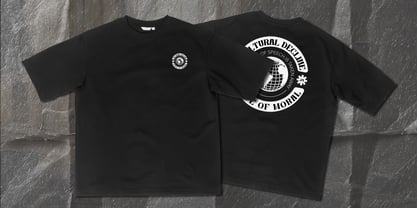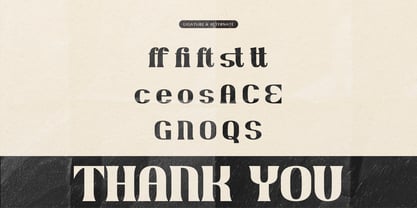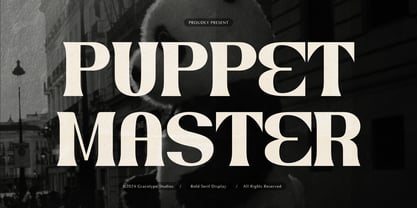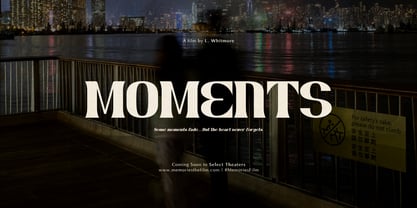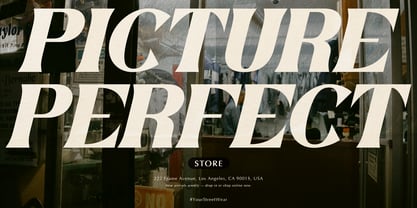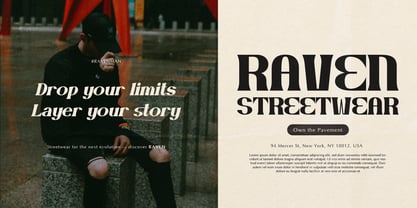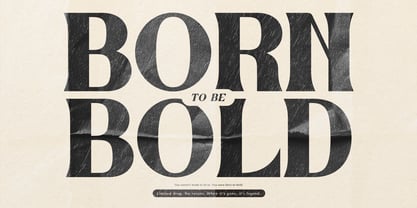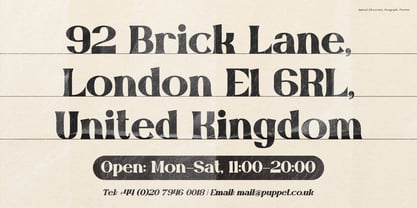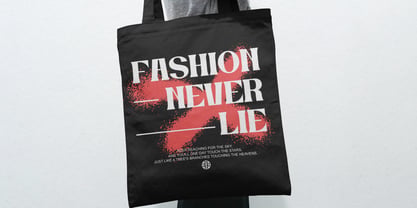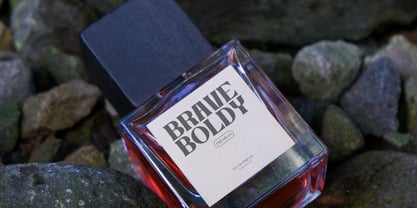
Puppet Master
The Puppet Master Font Family was designed by and published by Tini Fitriani. Puppet Master contains 2 styles and family package options. More about this family
Puppet Master | Bold Serif Display, from Gracetypestudio, suitable for any projects such as: logos, branding projects, homeware designs, product packaging, mugs, quotes, posters, shopping bags, t-shirts, book covers, name card, invitation cards, greeting cards, label, photography, watermark, special events, and all your other lovely projects that need a Bold Serif Display taste.
• Regular and Italic
• Standard glyphs
• Alternate and Ligature
• Fonts include multilingual support